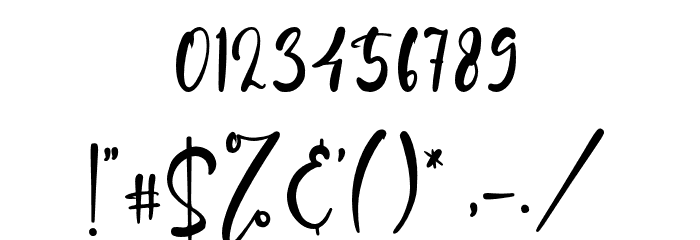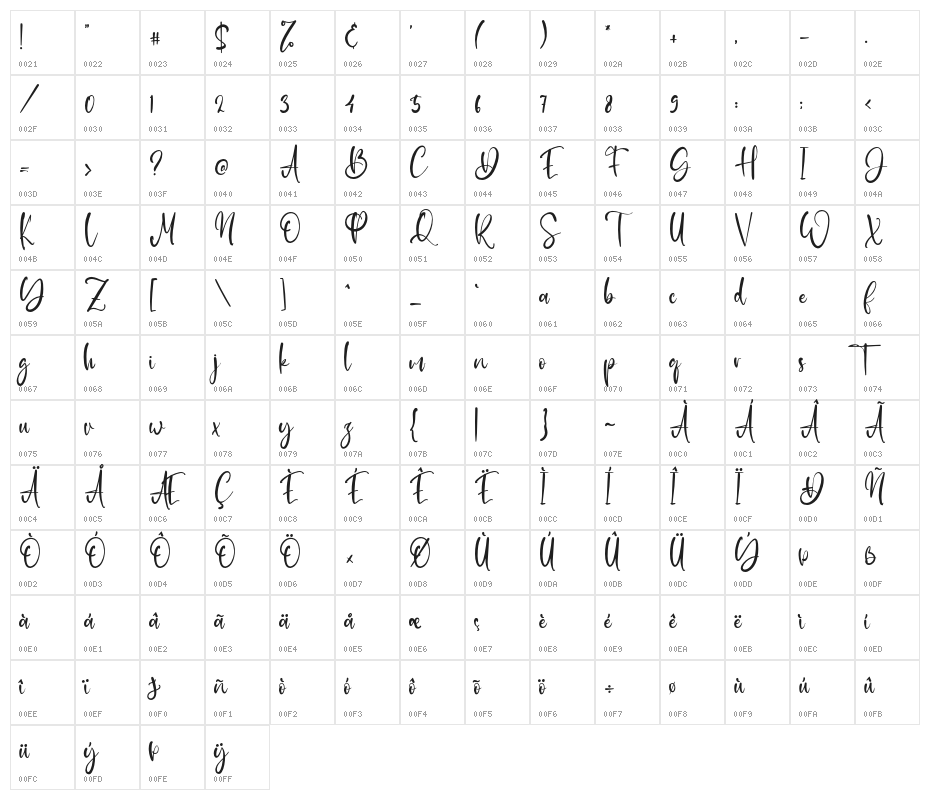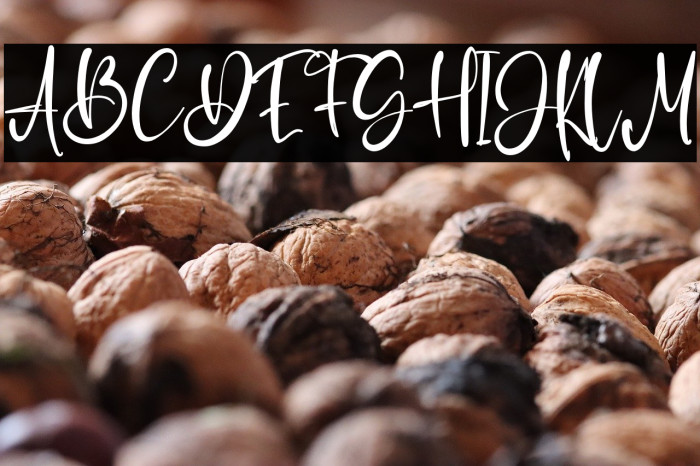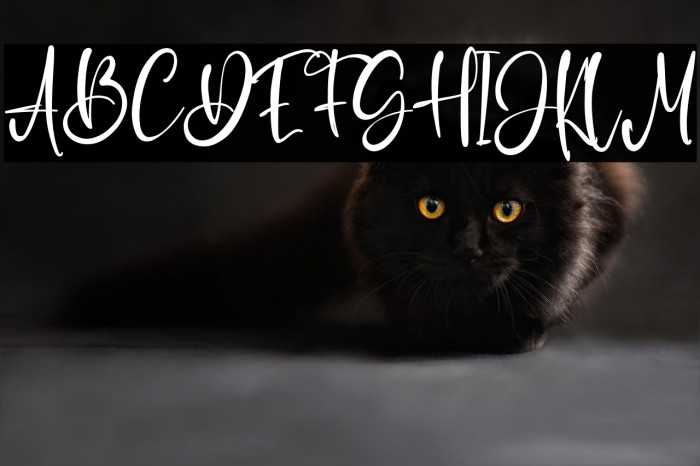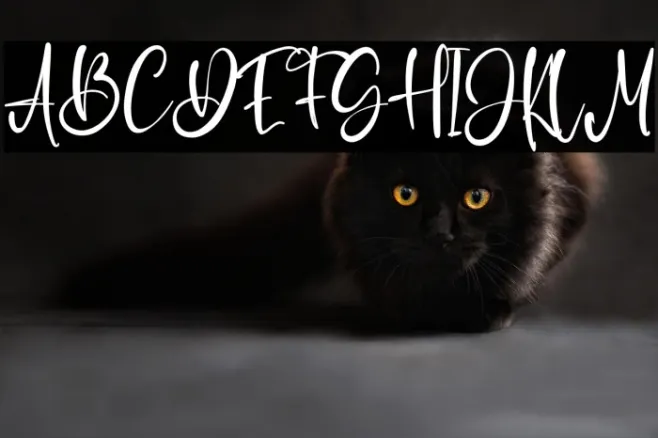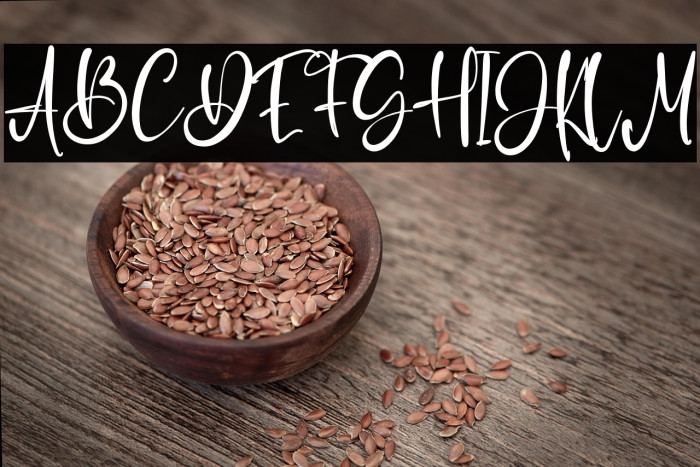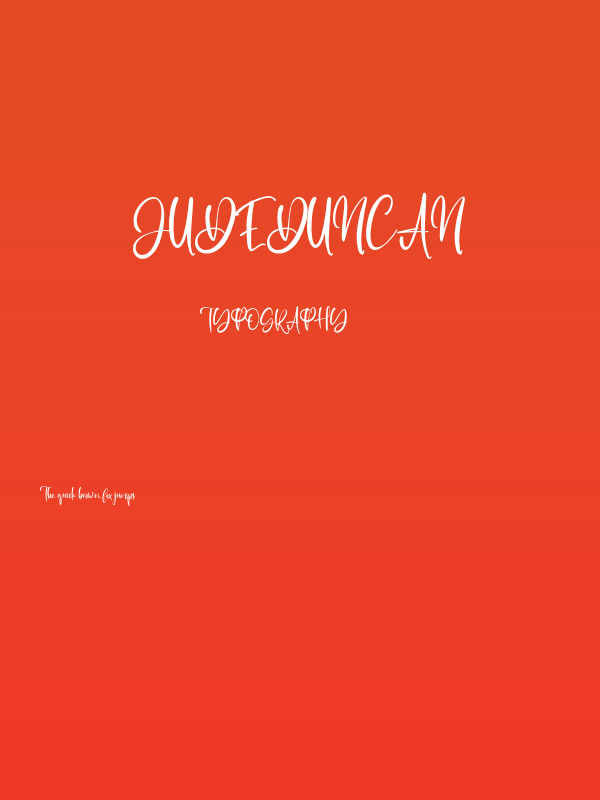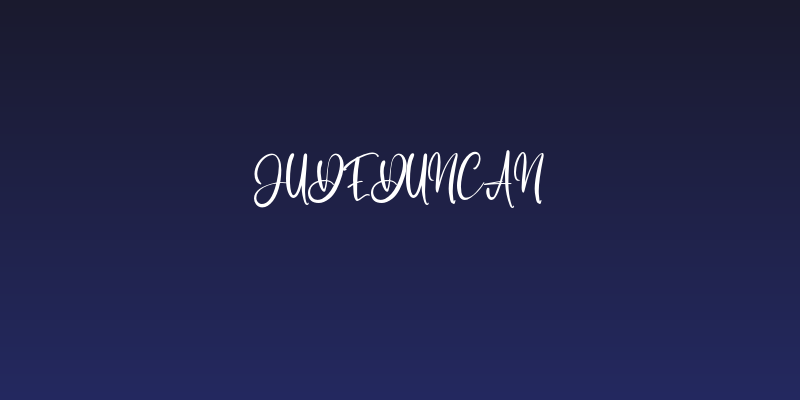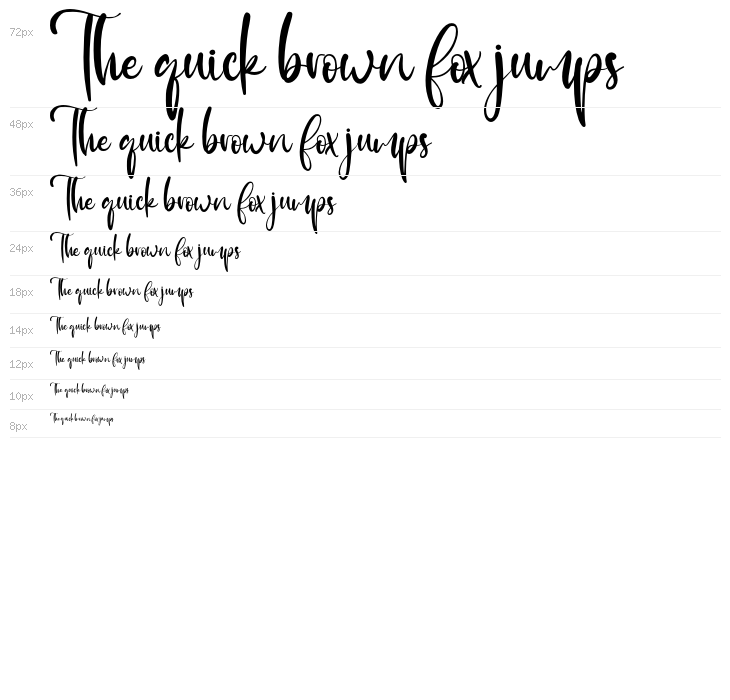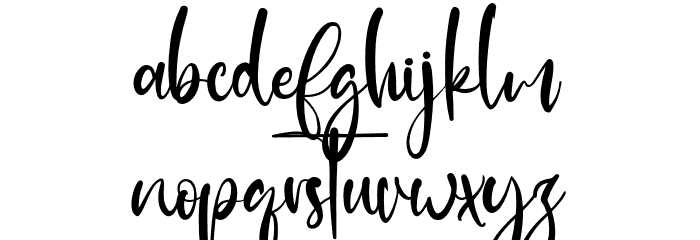
JudeDuncan Font
JudeDuncan Description
This font features an elegant, flowing script style with a handwritten appearance. The uppercase letters are characterized by their tall, sweeping ascenders and descenders, giving them a sense of movement and grace. The lowercase letters maintain a consistent flow, with some letters connecting seamlessly to the next, enhancing the cursive aesthetic. The numerals are distinct yet harmonize well with the overall script style, maintaining the same fluidity. Special characters are creatively designed, adding a playful touch to the font. The overall impression is one of sophistication and artistic flair, making it suitable for creative and decorative uses.